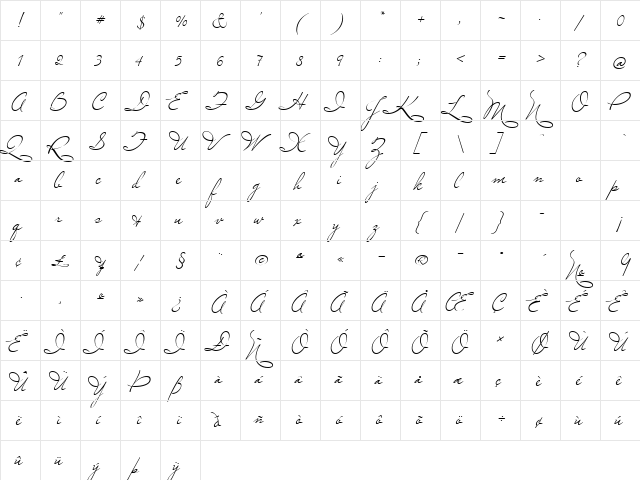
Miss Le Gatees Regular
Design Context for Miss Le Gatees Typeface
Miss Le Gatees is a composed and adaptable typeface that performs quietly and consistently across a wide range of design contexts.